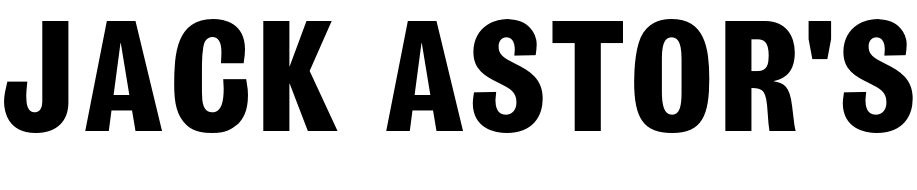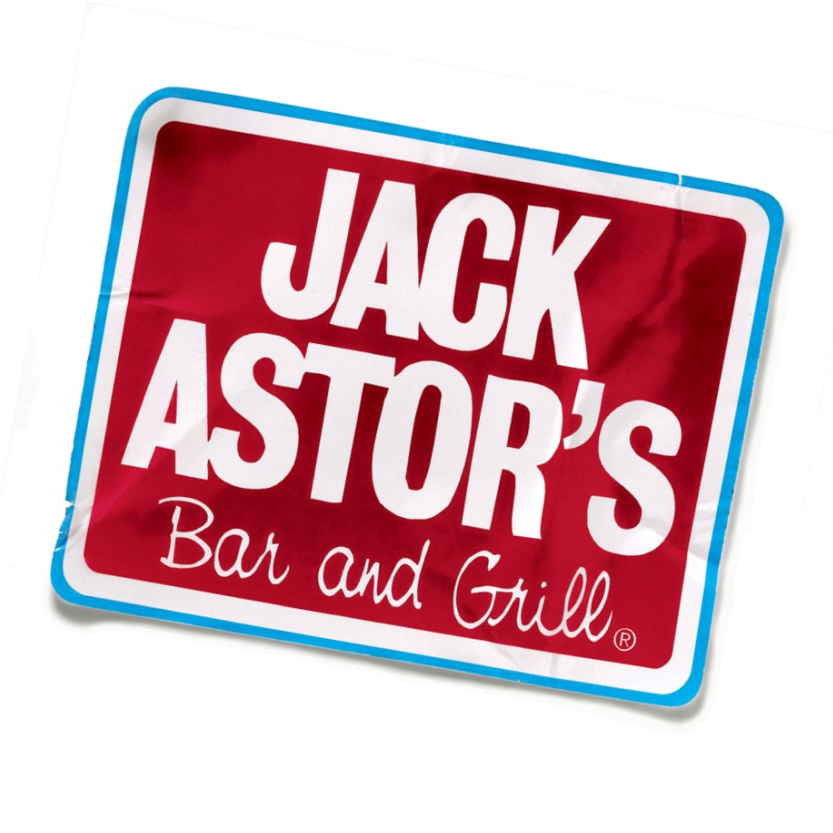
Jack Astor's Font
Fonts in UseJack Astor’s is a Canadian restaurant chain known for its casual dining atmosphere and diverse menu options. It was founded in 1990 and has over 40 locations across Canada and the United States.
Jack Astor's logo features a combination of sans-serifs; Monotype's Headline typeface and Thomas S Nevison's Nevison Casual font for the "Bar and Grill" text.